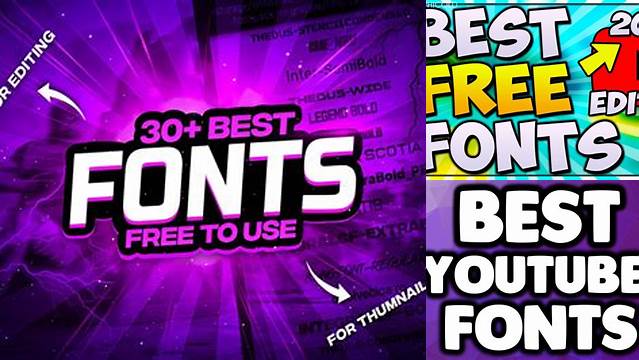
YouTube Thumbnail Fonts: Free Download Guide
Hey guys! If you're a YouTuber, you already know that your thumbnail is the first thing people see. It's your secret weapon to grabbing those precious clicks! And guess what? The font you choose can make or break your thumbnail's success. So, let's dive into the best fonts for YouTube thumbnails and, the best part, where you can snag them for free download!
Why Font Choice Matters for Your YouTube Thumbnails
Alright, listen up! Your YouTube thumbnail is like a tiny billboard for your video. It has to be eye-catching, informative, and, most importantly, readable at a glance. Think about it: people are scrolling through a sea of videos. You've got milliseconds to capture their attention. A well-chosen font is the key to achieving this. A bad font? Well, it can make your thumbnail look cluttered, unprofessional, and, let's be honest, kinda boring. You don't want that, right?
So, why is font choice so crucial? First off, readability is king. The font needs to be crystal clear, even on small screens. You want people to instantly understand what your video is about without squinting or having to zoom in. Secondly, your font choice helps define your brand aesthetic. Are you going for a fun and playful vibe? A serious and professional look? The font you select contributes to your channel's overall style. It's like choosing the perfect outfit for your video to wear. A well-chosen font boosts your click-through rate (CTR). A higher CTR means more views, and more views mean a happier you! Now, let's not forget about making a positive first impression. When your thumbnail looks polished and well-designed, it suggests that your video content is just as high-quality. It builds trust and encourages viewers to click. Imagine if the biggest YouTubers used the same Comic Sans font that was used in your high school presentations. No one is going to click. So, to reiterate, choosing the right font for your thumbnail is a smart move. It's an investment in your channel's success, so let's make sure to make it count. Remember, your thumbnail is a promise of what's inside the video, so you want to make sure you're attracting the right viewers with the right font. We need fonts that pop, fonts that convey the message, and fonts that keep your viewers coming back for more. This is why it's critical to choose the best fonts for YouTube thumbnails. And the icing on the cake? You can find many amazing fonts for free download!
Top Free Fonts for YouTube Thumbnails: A Curated List
Okay, let's get down to business and talk about the best fonts for YouTube thumbnails! I've put together a list of some of my all-time favorite free fonts, categorized by their strengths, to help you find the perfect fit for your channel. Ready? Let's roll!
- Impact: This one is a classic. Impact is bold, thick, and gets straight to the point. It's perfect for making a statement, especially if you need to highlight a key word or phrase. Best of all, it's super readable, even at smaller sizes. Think of it as the heavyweight champion of thumbnail fonts – always ready to deliver a knockout punch!
- Bebas Neue: If you're looking for a modern, clean sans-serif font, Bebas Neue is a fantastic option. It has a tall, condensed design, which makes it great for fitting more text into a small space. It's also very versatile and works well for various video topics. This font is like the Swiss Army Knife of thumbnail fonts – it just works in almost any situation!
- Montserrat: Montserrat is another excellent sans-serif font that offers a clean, modern look. It has a wide variety of weights and styles, so you can customize it to fit your specific needs. Whether you want bold, thin, or somewhere in between, Montserrat has you covered. It's perfect for creating a cohesive visual identity for your channel. This font is the adaptable chameleon of the font world!
- Roboto: This is a popular font for a reason. Roboto is a highly readable sans-serif with a friendly and approachable feel. It's versatile, working great for both headlines and short snippets of text. If you're aiming for a clean, modern look, Roboto is a solid choice. This font is like your reliable best friend – always there when you need it.
- Oswald: Oswald is a condensed font, similar to Bebas Neue, which helps you fit more text on your thumbnail. It's great for attention-grabbing headlines and titles. If you need to make a bold statement with your text, this font is a winner. It's perfect for those thumbnails that need to shout their message from the rooftops!